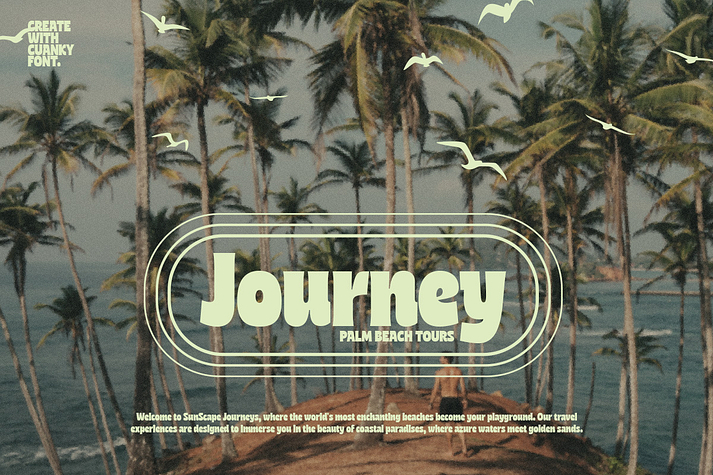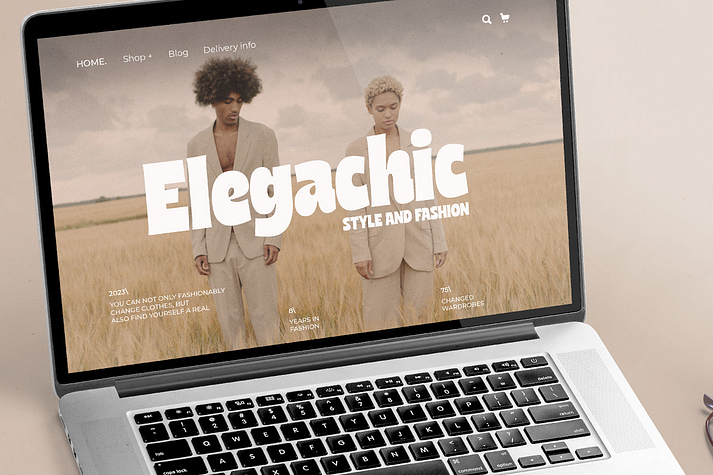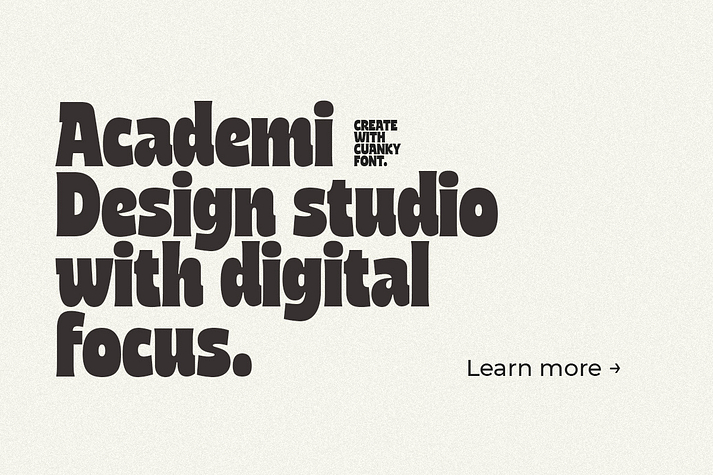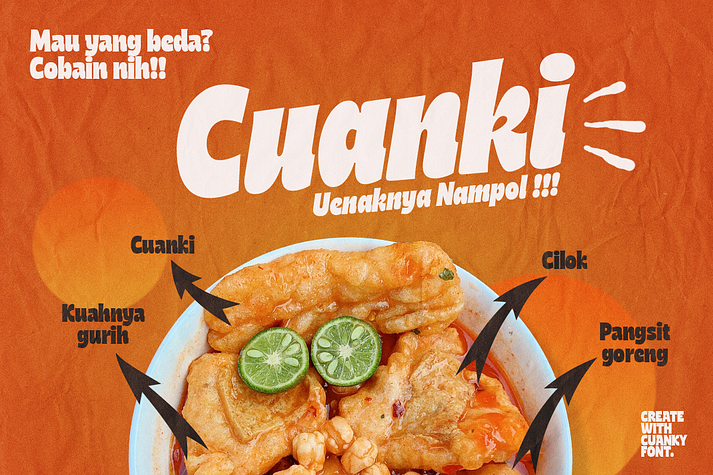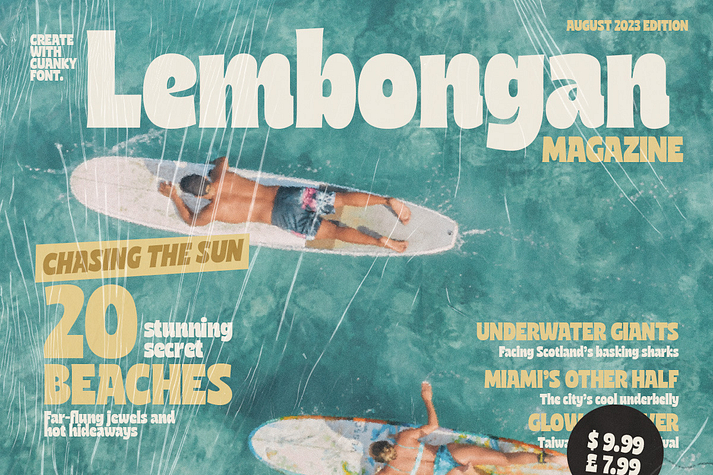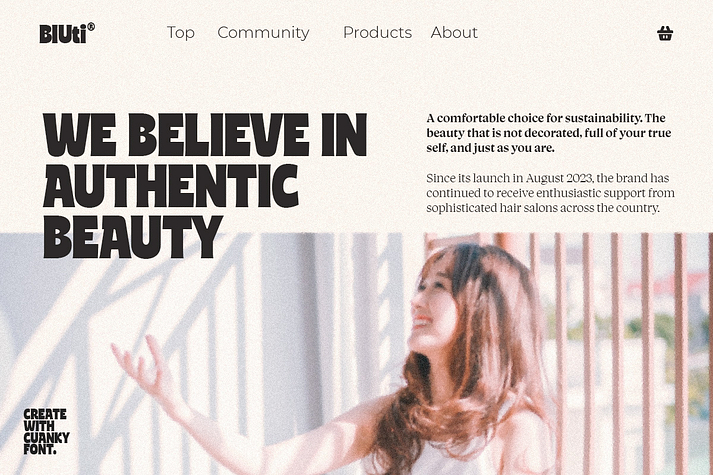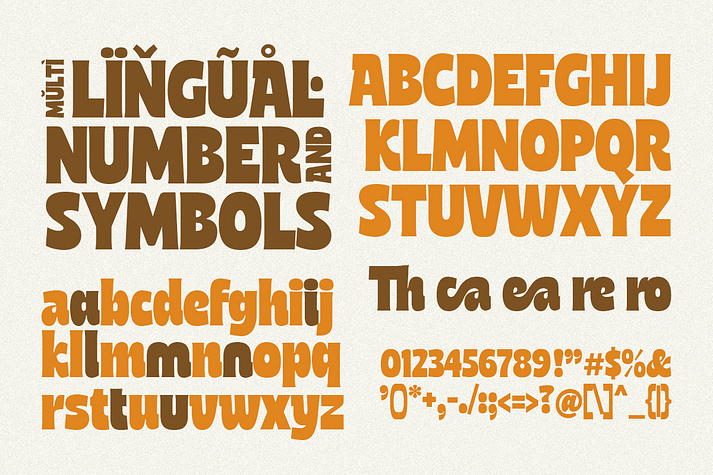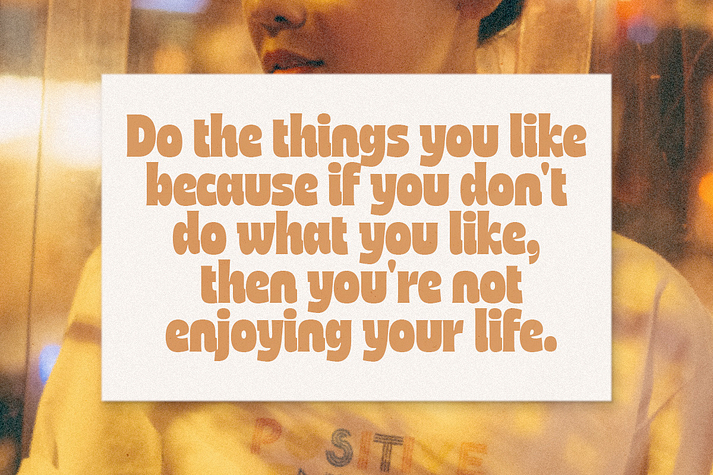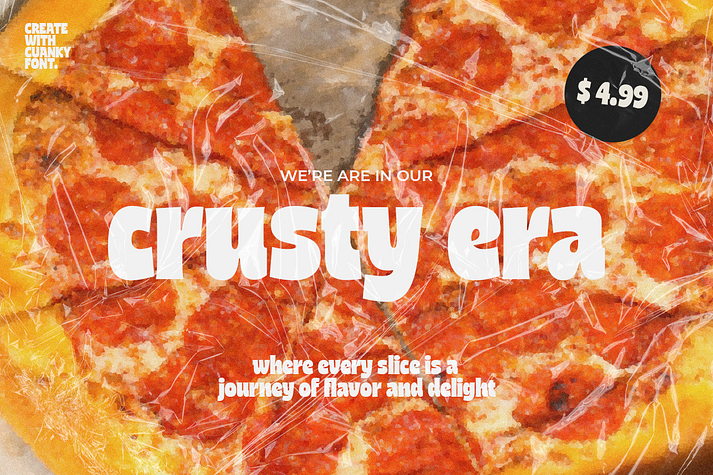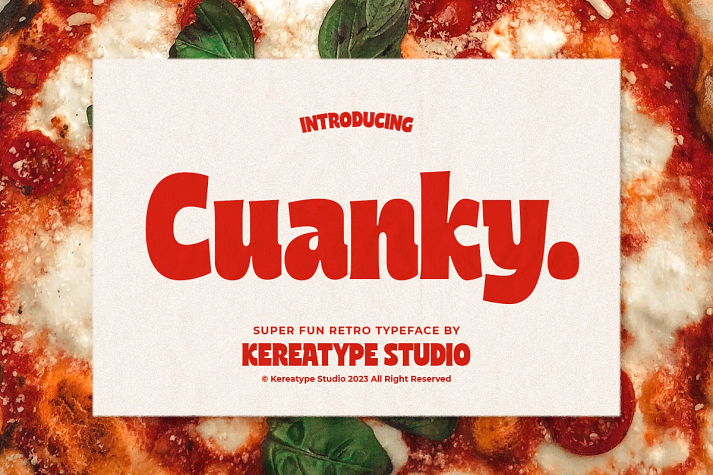
Cuanky
Cuanky is a display sans and sans serif font family. This typeface has two styles and was published by Kereatype.
Cuanky is a super fun, retro-style sans serif font with subtle serifs. It possesses a recognizable flair and evokes a sense of warm nostalgia. Available in both regular and italic styles, Cuanky also features a playful hint of the future.
Cuanky is perfect for headlines or food-related designs, such as pizza, burgers, and restaurant themes. Additionally, it’s well-suited for creating eye-catching posters with a cool aesthetic.
• Multilingual Support
• OpenType features including ligature, contextual punctuation & more